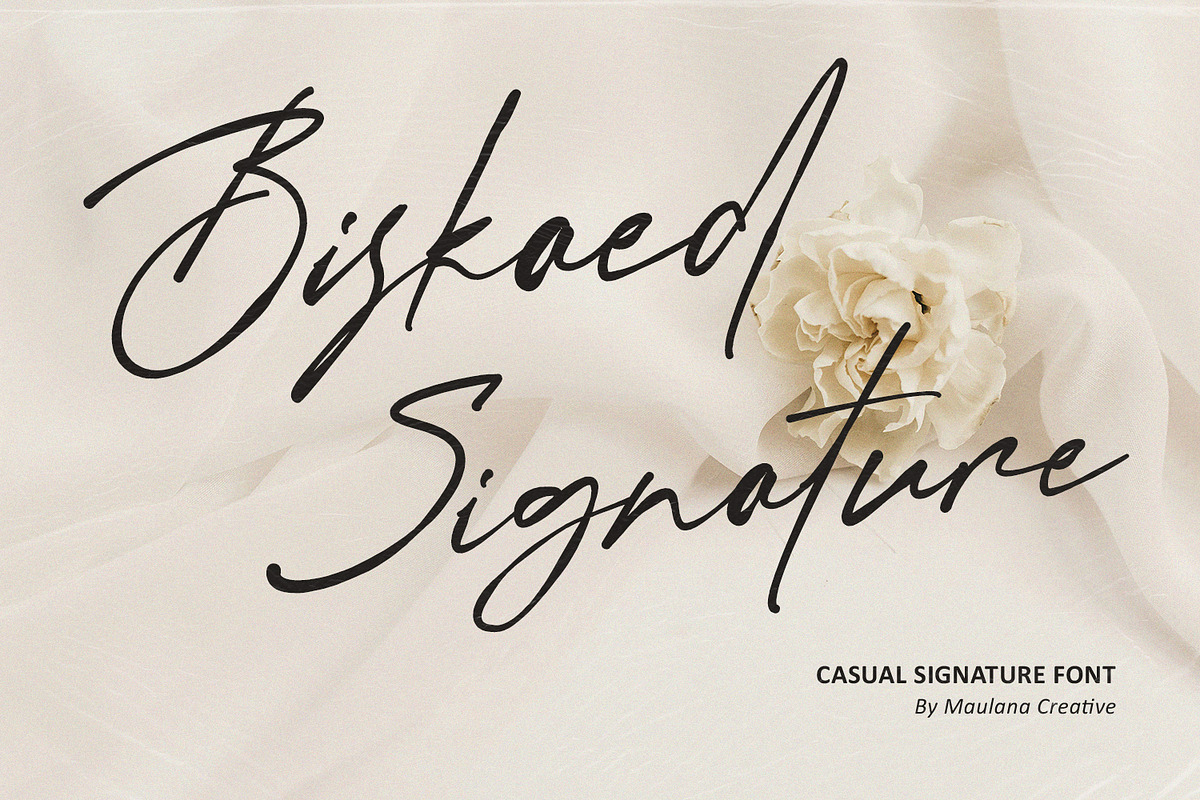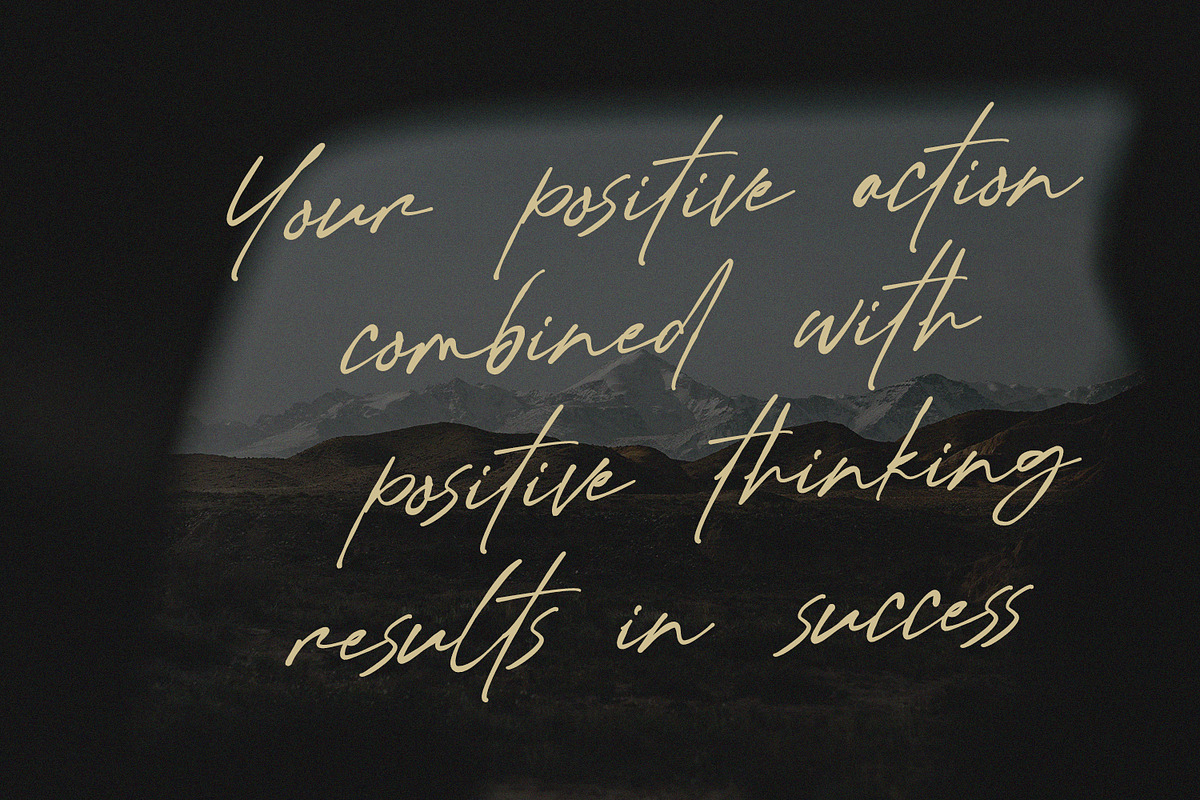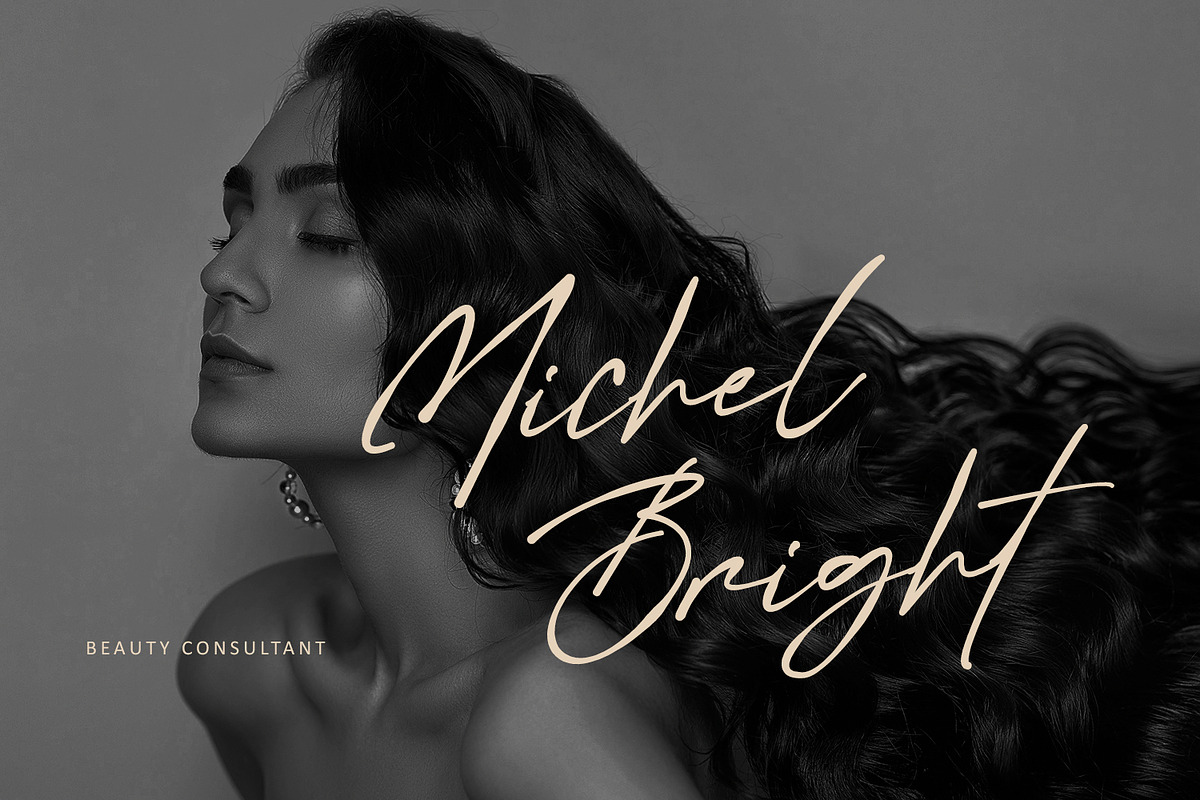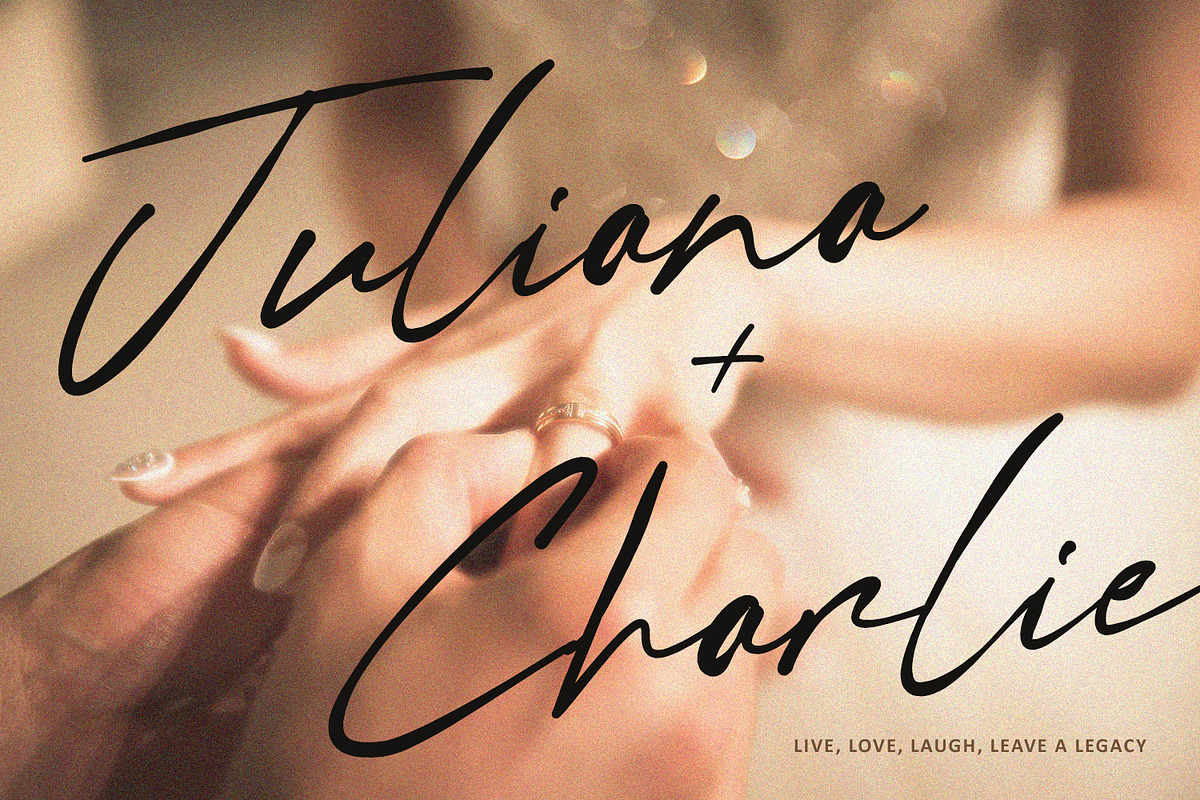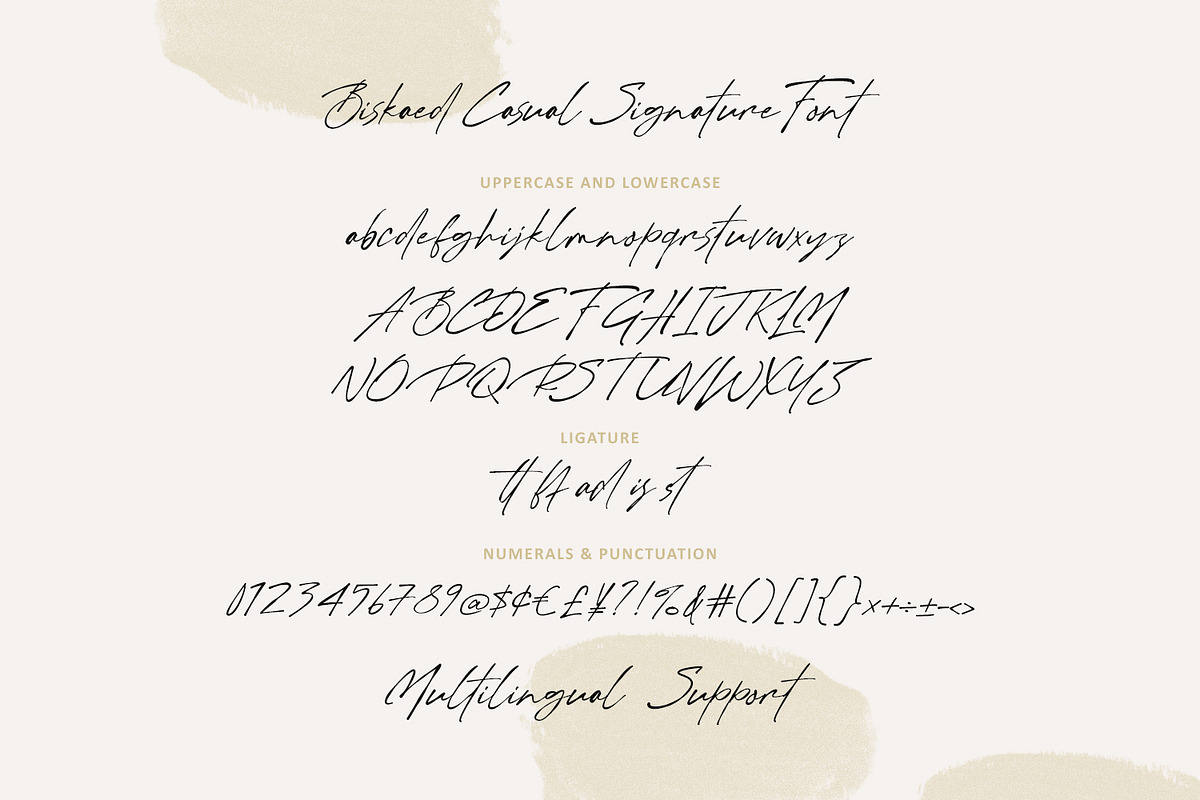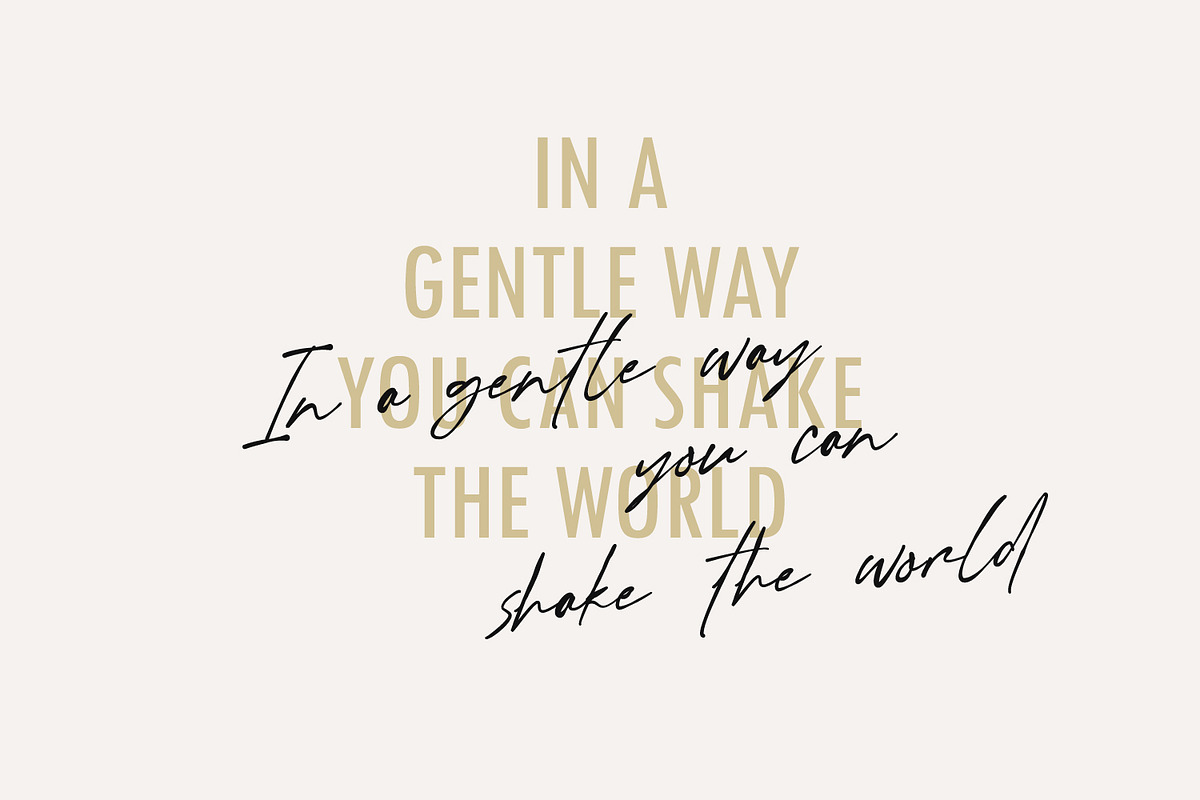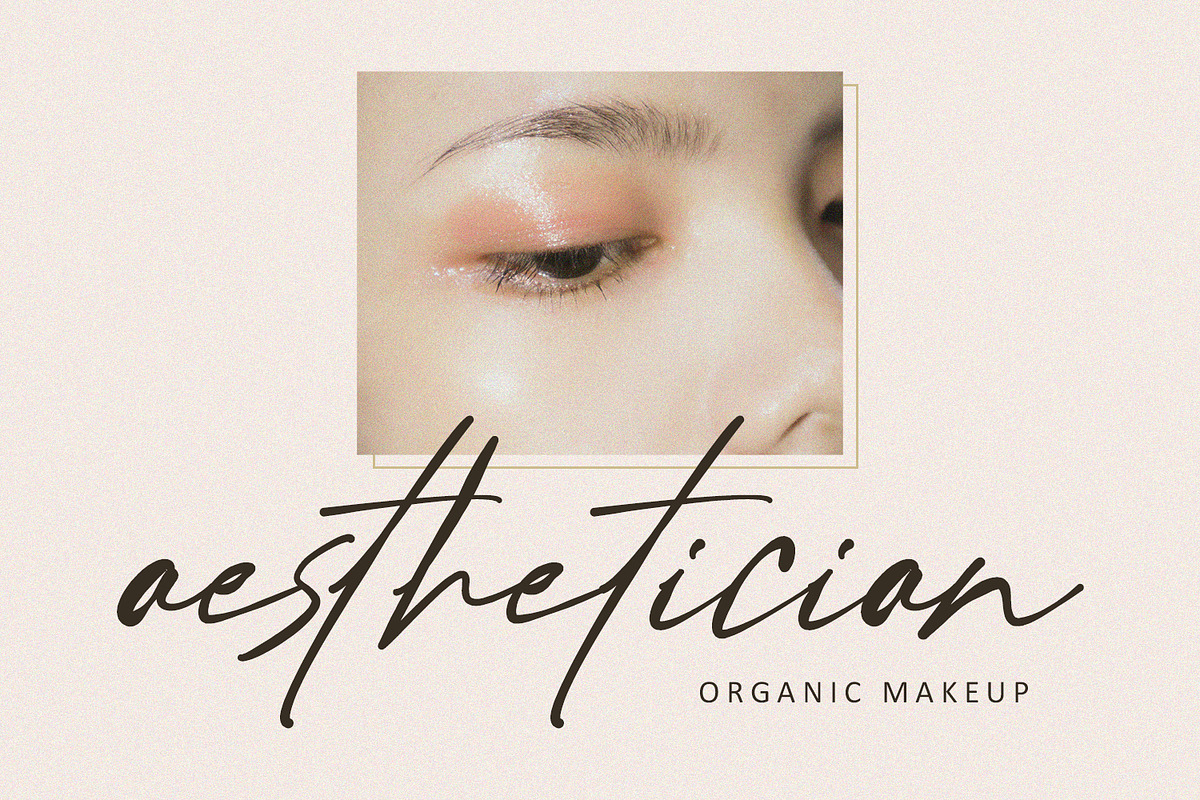
Biskaed Authentic Casual Signature
Elevate your designs with the effortless elegance of Biskaed.
Biskaed is a premium casual signature font designed to bring a personal, handcrafted touch to your creative projects. With its flowing lines, natural pressure strokes, and modern aesthetic, this font perfectly mimics real handwriting. Whether you are building a high-end brand or designing heartfelt stationery, Biskaed offers the versatility and style you need.
Why Choose Biskaed?
- Natural Flow: Includes ligatures and alternates to maintain a seamless, organic look.
- Versatile Style: Perfectly suited for luxury branding, wedding invitations, fashion photography overlays, and social media quotes.
- Full Professional Set: Comes with uppercase, lowercase, numerals, punctuation, and multi-language support.
- Timeless Aesthetic: A balance of "casual" and "sophisticated" that never goes out of style.
- Beautiful Ligatures for a custom feel
- Multilingual characters
Perfect for: Logo branding, business cards, watermark photography, wedding cards, lifestyle blogs, and stylish merchandise.